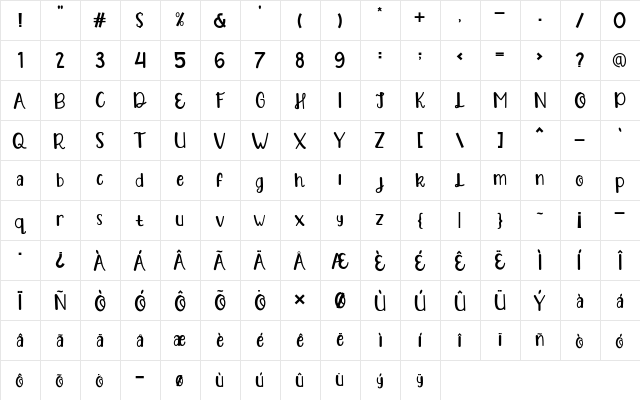
RANDY CANDY Regular
| Foundry | Alfinart |
| Designer | Alfin Ridhowi |
Design Context for RANDY CANDY Typeface
RANDY CANDY is a composed and adaptable typeface that performs quietly and consistently across a wide range of design contexts.